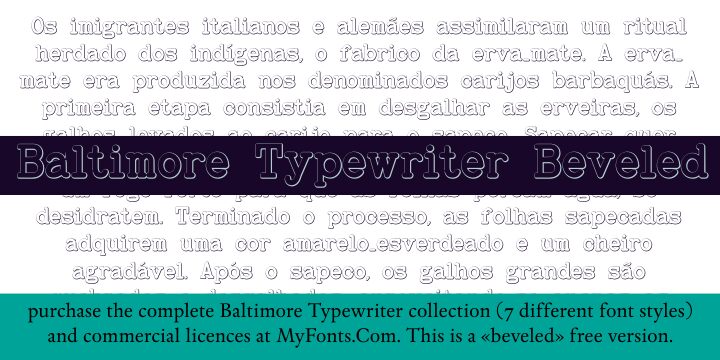
Baltimore Typewriter Bold Beveled by Iza W of IntellectaDesign is a free beveled serif display font with broad, sturdy letterforms. Rounded slab serifs and a fine inner contour give the lettering a stamped finish, softened by curved shoulders.
It can create the look of an embossed shop sign for heritage branding and restaurant packaging. The forms also suit poster titles and event merchandise with a vintage theme. Its inset line can echo engraved borders, label frames and period-style illustration.
Baltimore Typewriter Beveled was created by Intellecta Design. This is a free beveled version.
Baltimore Typewriter includes complete sets of diacritics and special letters for Central European languages.